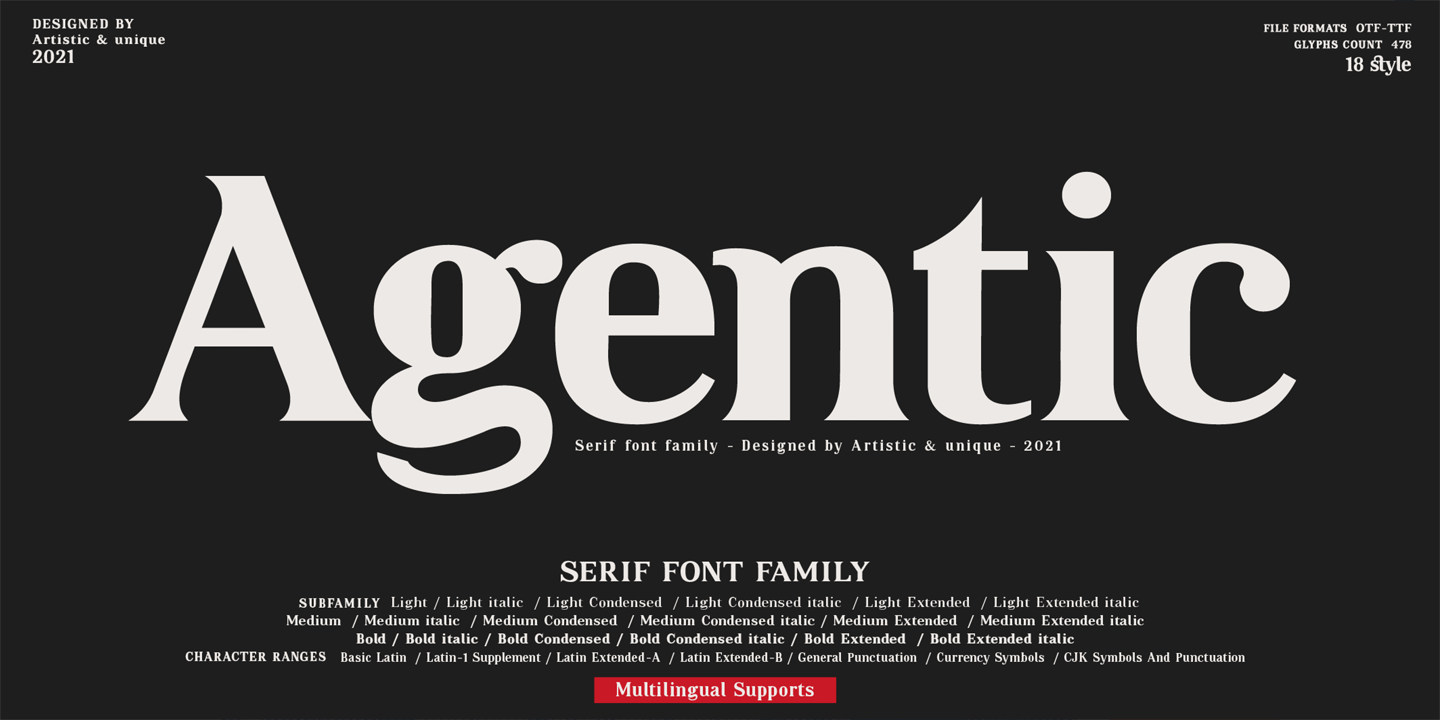
Agentic Font is perfect for artificial intelligence companies, automation technology firms, intelligent software solutions, autonomous system branding, machine learning platforms, robotics corporations, smart technology products, AI research institutions, automated service providers, and futuristic agent-based designs.
Agentic Font is exciting because it operates with intelligent precision and autonomous authority through algorithmically-inspired letterforms that capture the sophisticated decision-making power of AI agents and the revolutionary potential of intelligent automation, making it perfect for brands at the forefront of artificial intelligence innovation.
The Agentic Font family includes regular and bold weights with algorithmic alternates, AI-inspired ornaments, and intelligent system decorative elements, providing designers with smart tools for creating typography that processes with authentic technological authority and automated efficiency.
When your project demands AI credibility and intelligent automation appeal, Agentic Font Free Download provides the perfect typographic algorithm for artificial intelligence communications. This intelligent display typeface combines machine learning aesthetics with contemporary functionality, ensuring your brands resonate with tech-forward audiences seeking genuine AI innovation and autonomous system solutions. The precise letterforms and algorithm-inspired styling make this font an essential choice for AI companies, automation firms, and any application where artificial intelligence, machine learning, and autonomous systems are crucial for establishing credibility and connecting with communities that understand the transformative potential of intelligent agents and the revolutionary impact of AI-driven automation in our rapidly evolving technological landscape where smart systems define the future.